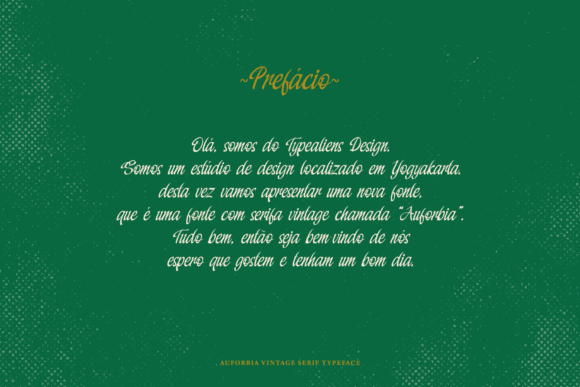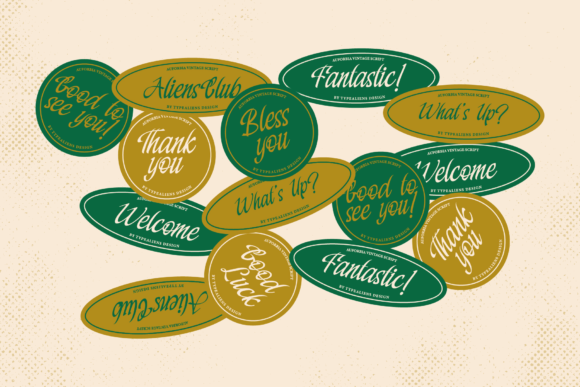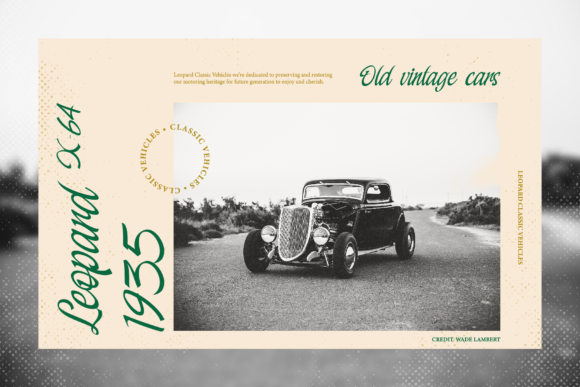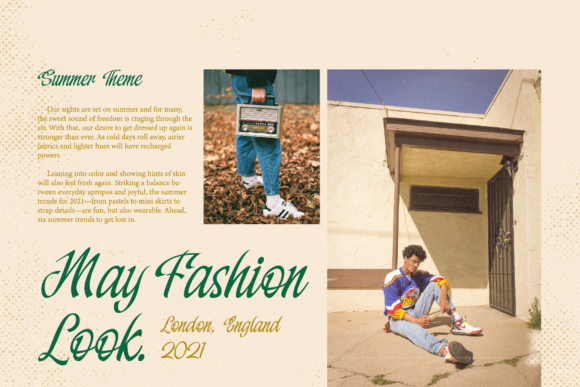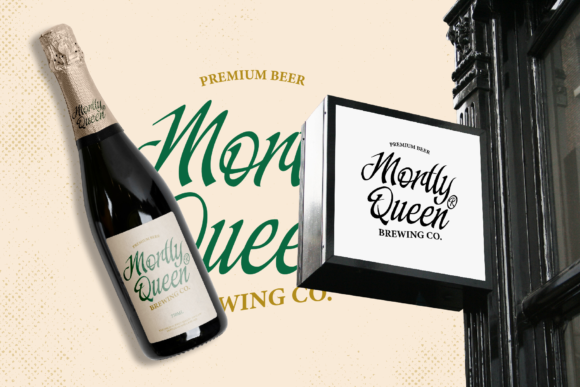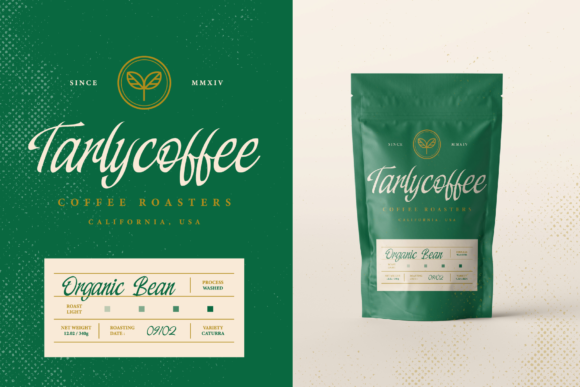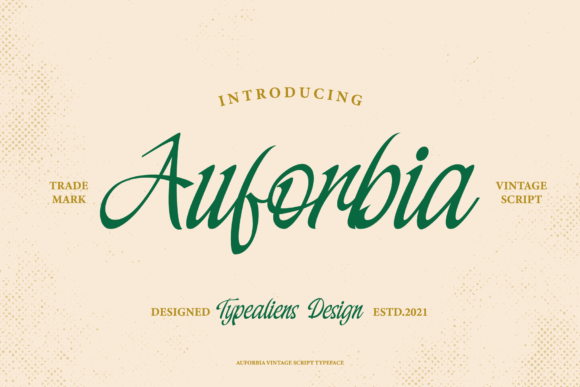
Introducing Auforbia: The Elegant Handwritten Font for Your Creative Projects
Are you tired of using the same old fonts in your designs? Look no further! Auforbia is a stunning handwritten font that is sure to become your new favorite. With its perfect blend of classic calligraphic influences and modern freshness, Auforbia is the ideal choice for designers and crafters looking to add a touch of elegance to their projects.
The Story Behind Auforbia
Auforbia is more than just a font – it’s a work of art. Its creator, a skilled typographer, has poured their heart and soul into crafting a unique and beautiful handwritten font that exudes sophistication and style. Every letter, every curve, and every detail has been carefully designed to create a font that is both visually appealing and highly legible.
What Makes Auforbia Special?
So, what sets Auforbia apart from other fonts? Here are just a few of its standout features:
• Classy Calligraphic Influences: Auforbia’s roots in traditional calligraphy are evident in its flowing lines, elegant letterforms, and refined details. Yet, it doesn’t feel stuffy or outdated – it’s been carefully crafted to feel fresh and modern.
• Contemporary and Fresh: Auforbia’s contemporary vibe makes it perfect for designers and crafters who want to create something new and exciting. Whether you’re working on a branding project, a wedding invitation, or a craft tutorial, Auforbia is sure to impress.
• Highly Legible: Despite its elegant nature, Auforbia is incredibly easy to read. Its clear letterforms and generous spacing make it perfect for use in a variety of applications, from large headings to body text.
Using Auforbia in Your Projects
So, how can you use Auforbia in your designs? The possibilities are endless! Here are a few ideas to get you started:
• Branding and Logos: Auforbia’s elegant, sophisticated feel makes it perfect for use in branding and logos. Use it to create a custom logo for your business, or add it to your brand guidelines for a cohesive look.
• Wedding Invitations and Stationery: Auforbia’s romantic, whimsical feel makes it a popular choice for wedding invitations, stationery, and other special occasion designs.
• Craft Tutorials and Blogs: If you’re a crafter or blogger, Auforbia is a great choice for your website or social media graphics. Its friendly, approachable feel makes it perfect for connecting with your audience.
Tips for Getting the Most Out of Auforbia
To make the most of Auforbia, here are a few tips to keep in mind:
• Experiment with Sizes and Colors: Auforbia looks great in a variety of sizes and colors. Experiment with different combinations to find the one that works best for your project.
• Pair it with Other Fonts: Auforbia pairs beautifully with other fonts. Try pairing it with a clean sans-serif font for a bold, modern look.
• Use it Consistently: To get the most out of Auforbia, use it consistently throughout your project. This will help create a cohesive look and make your design feel more polished.
In conclusion, Auforbia is a truly special font that is sure to become a favorite among designers and crafters. Its unique blend of classic calligraphic influences and modern freshness makes it perfect for a wide range of projects. Whether you’re looking to add a touch of elegance to your branding, create a beautiful wedding invitation, or simply add some personality to your craft tutorials, Auforbia is the perfect choice. So why wait? Give Auforbia a try today and see the difference it can make in your designs!